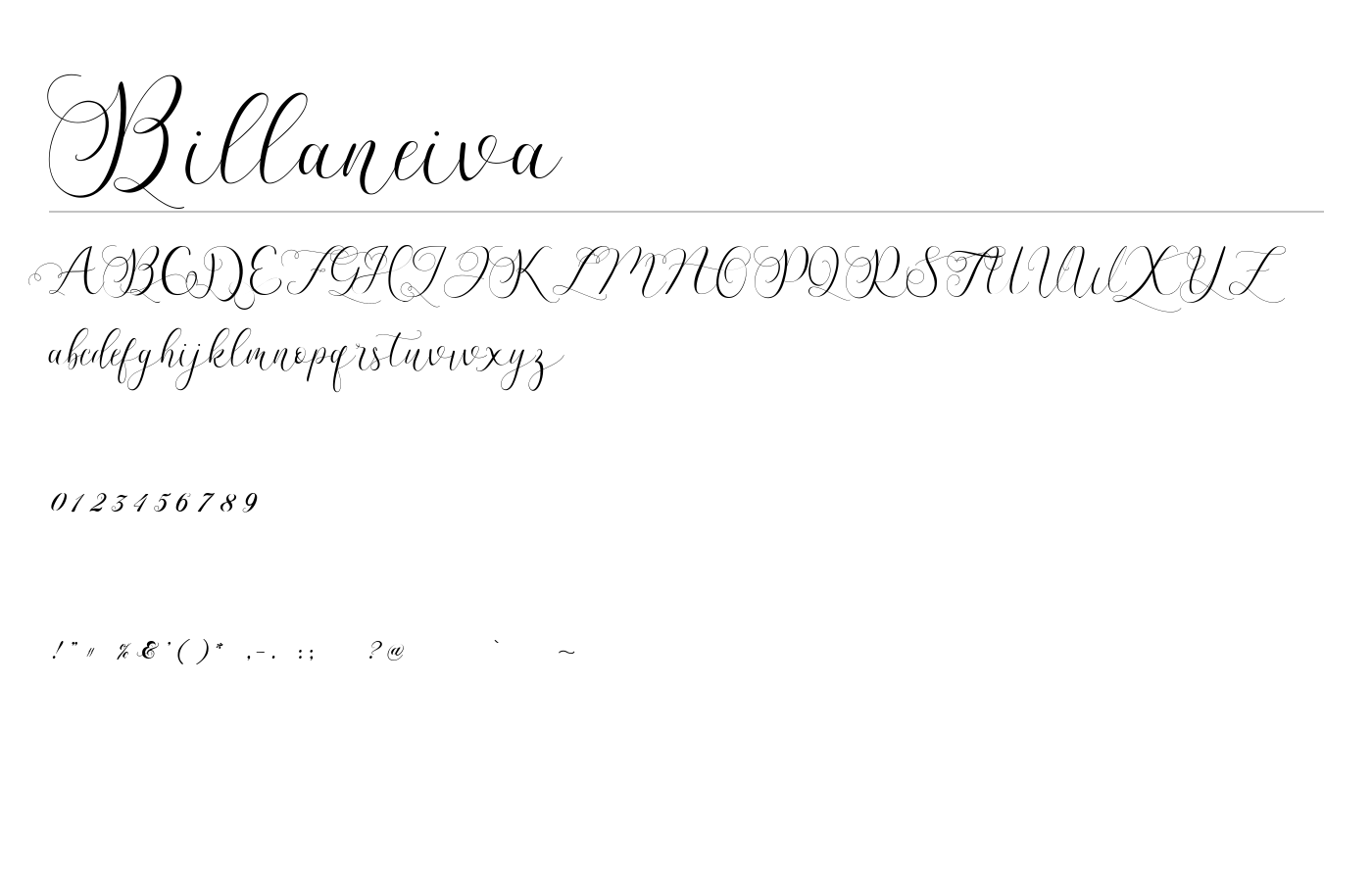
Billaneiva is an elegant script font with delicate, flowing strokes and intricate swashes that give it a refined, sophisticated appearance. Its thin, graceful lines and ornate uppercase letters make it ideal for luxury branding, wedding invitations, and stylish editorial projects where a romantic and classic touch is desired. This font works best in large sizes for headlines or decorative accents, adding a sense of elegance and charm.
| Font family | Billaneiva Font |
| Designer | thirtypath |